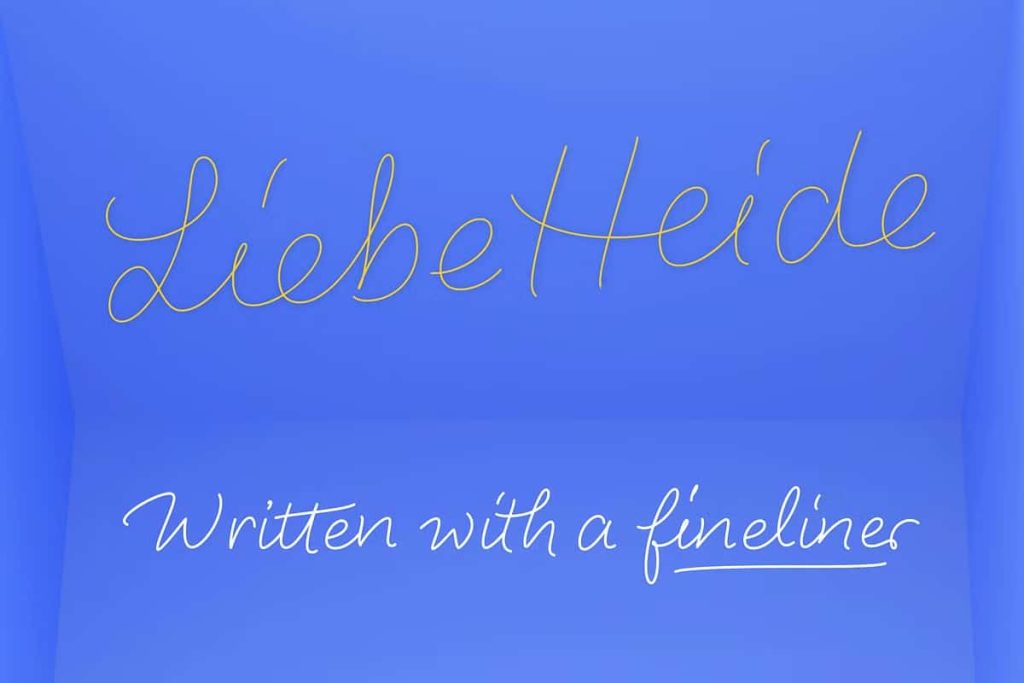
LiebeHeide Fineliner
Meet the vector version of the award-winning color font LiebeHeide—now more versatile and lifelike than ever! With its clean lines and smooth curves, LiebeHeide Fineliner adds a personal, friendly touch that sets it apart from standard handwriting fonts.